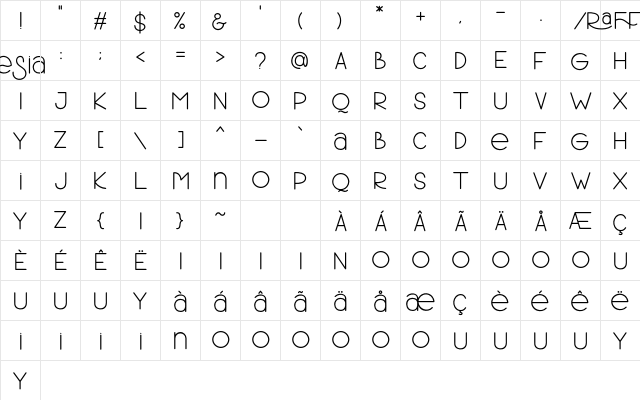
Rafflesia-Demo Regular
Design Context for Rafflesia-Demo Typeface
Rafflesia-Demo offers clean, dependable letterforms without strong stylistic allegiance, making it a practical choice for designers who need flexibility.
Pro Tip: Use Rafflesia-Demo in both headline and body roles to test its range before committing to a single application.